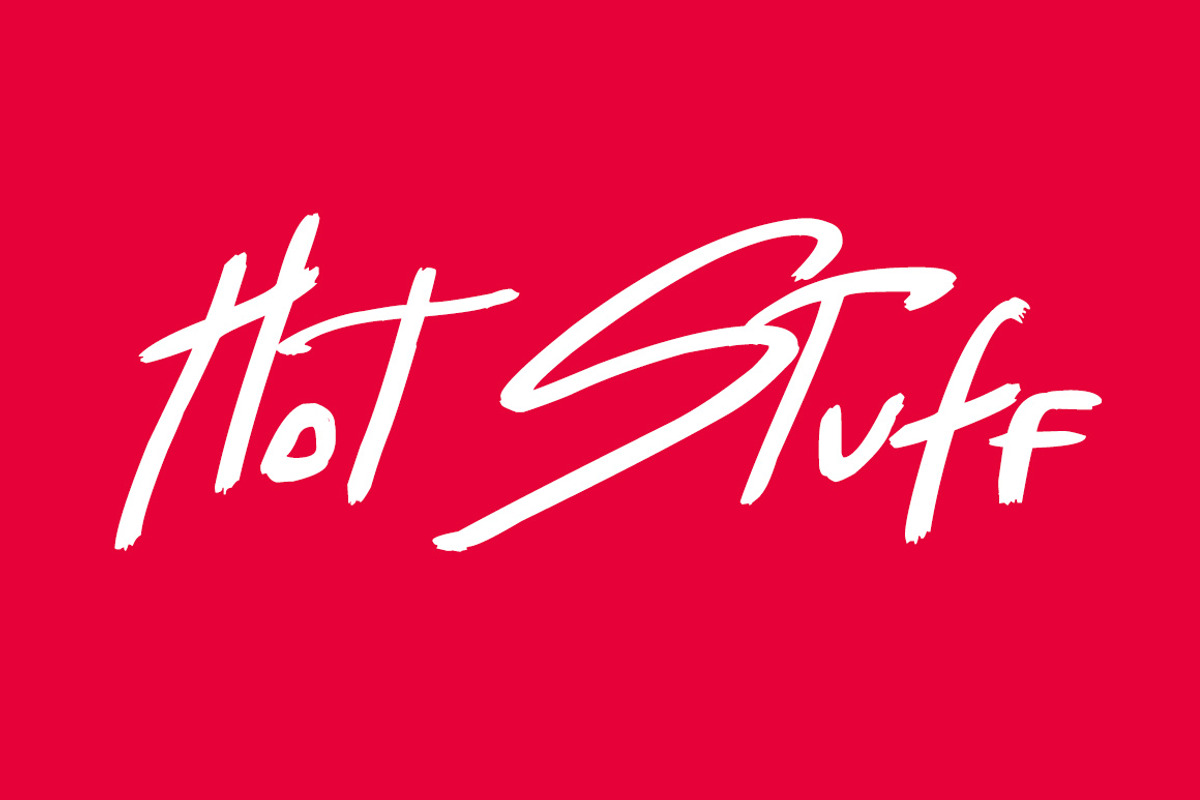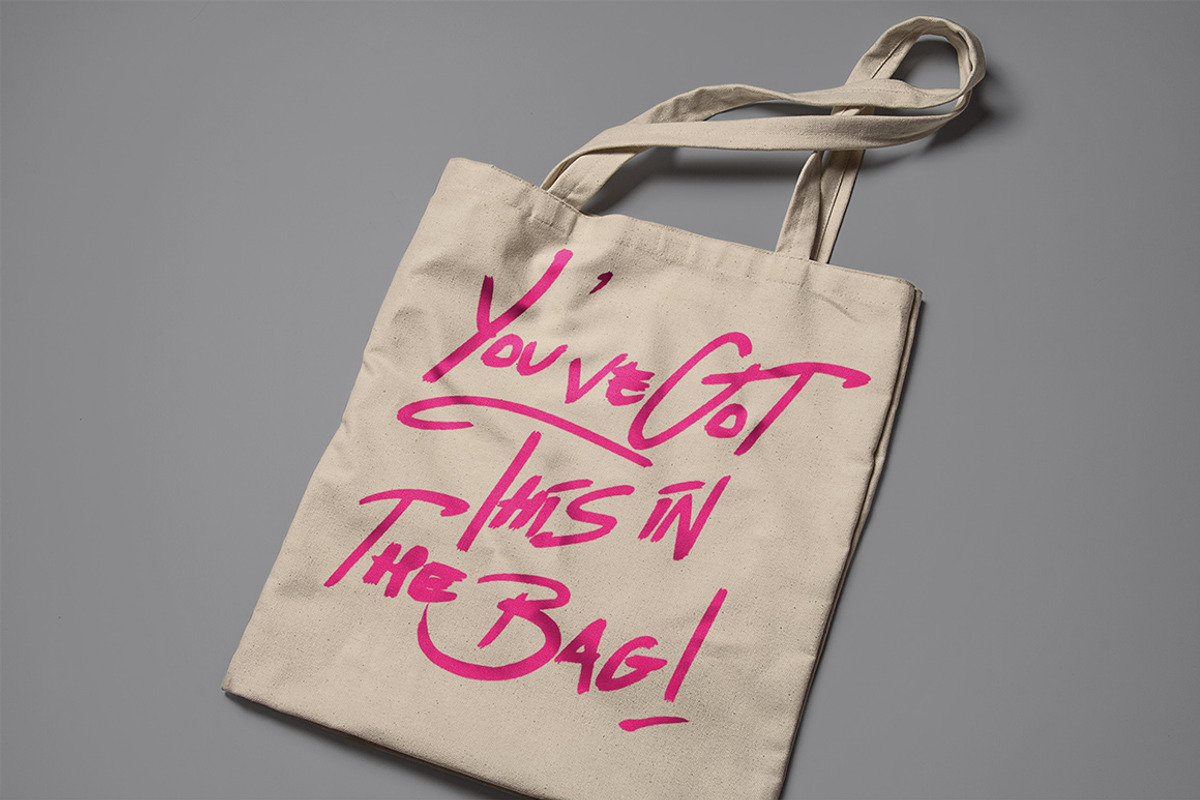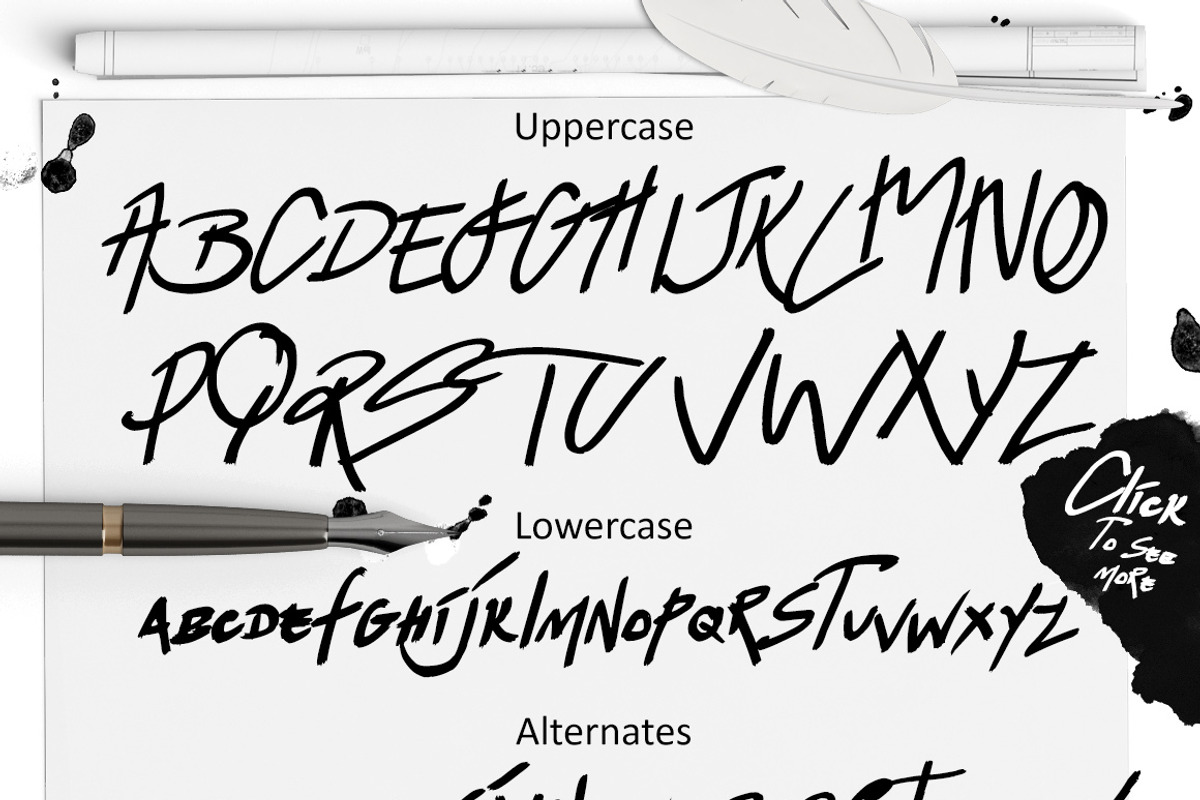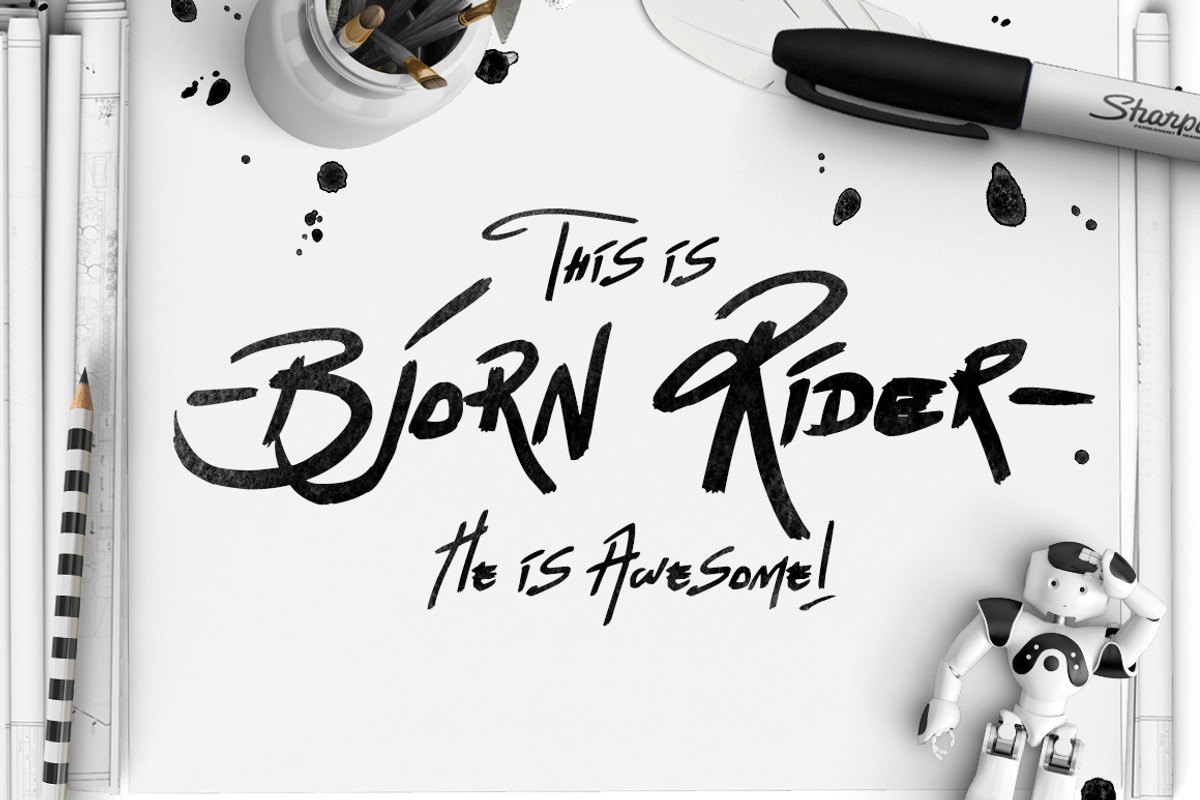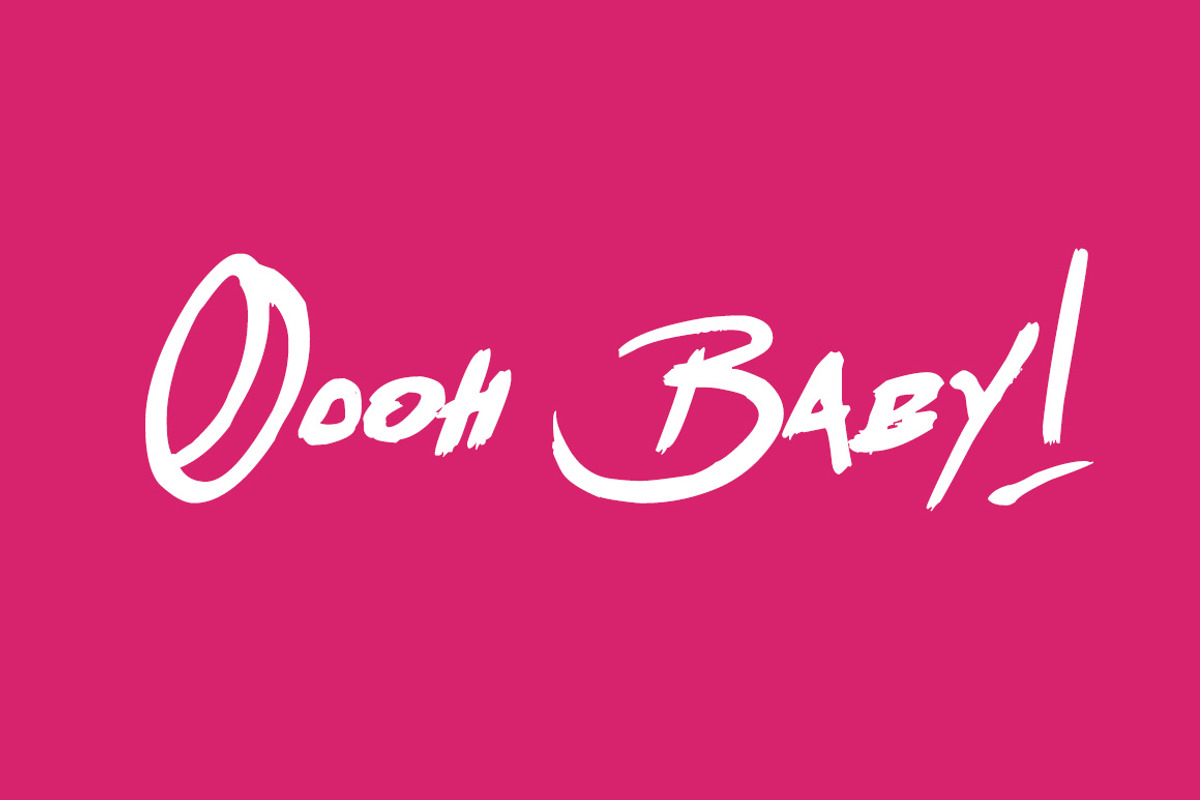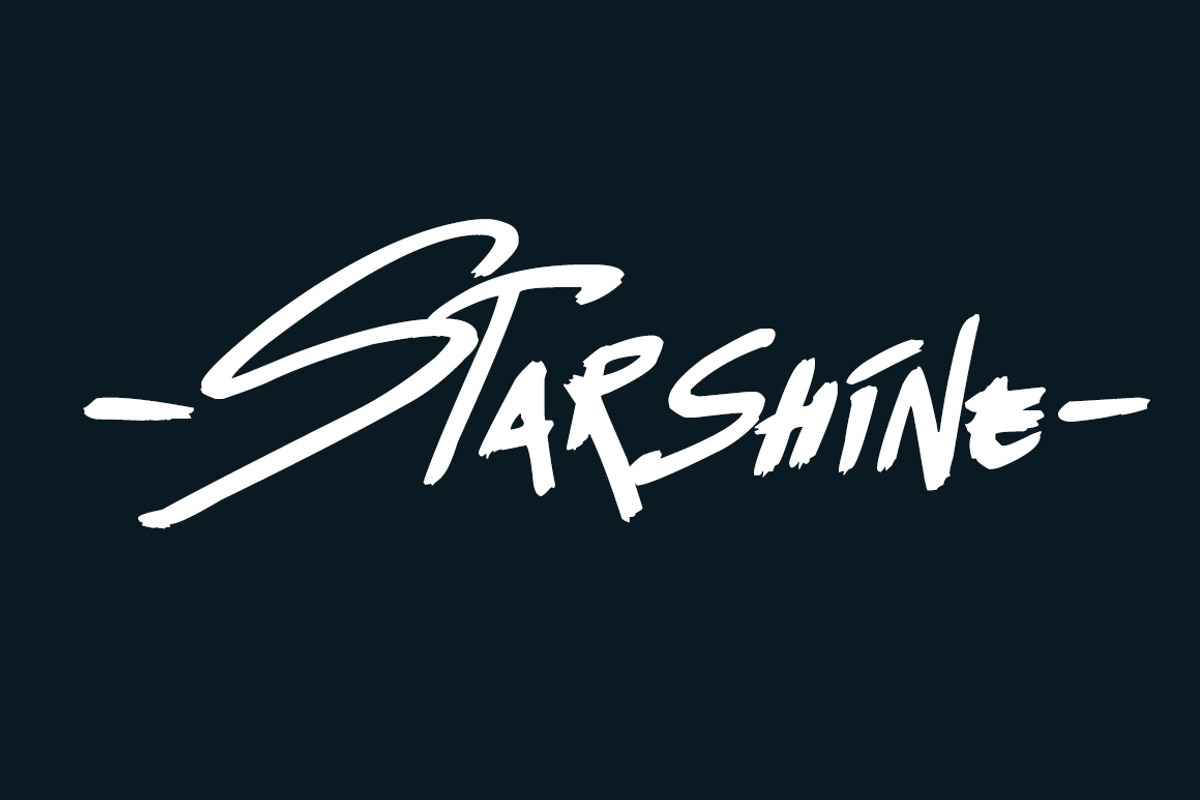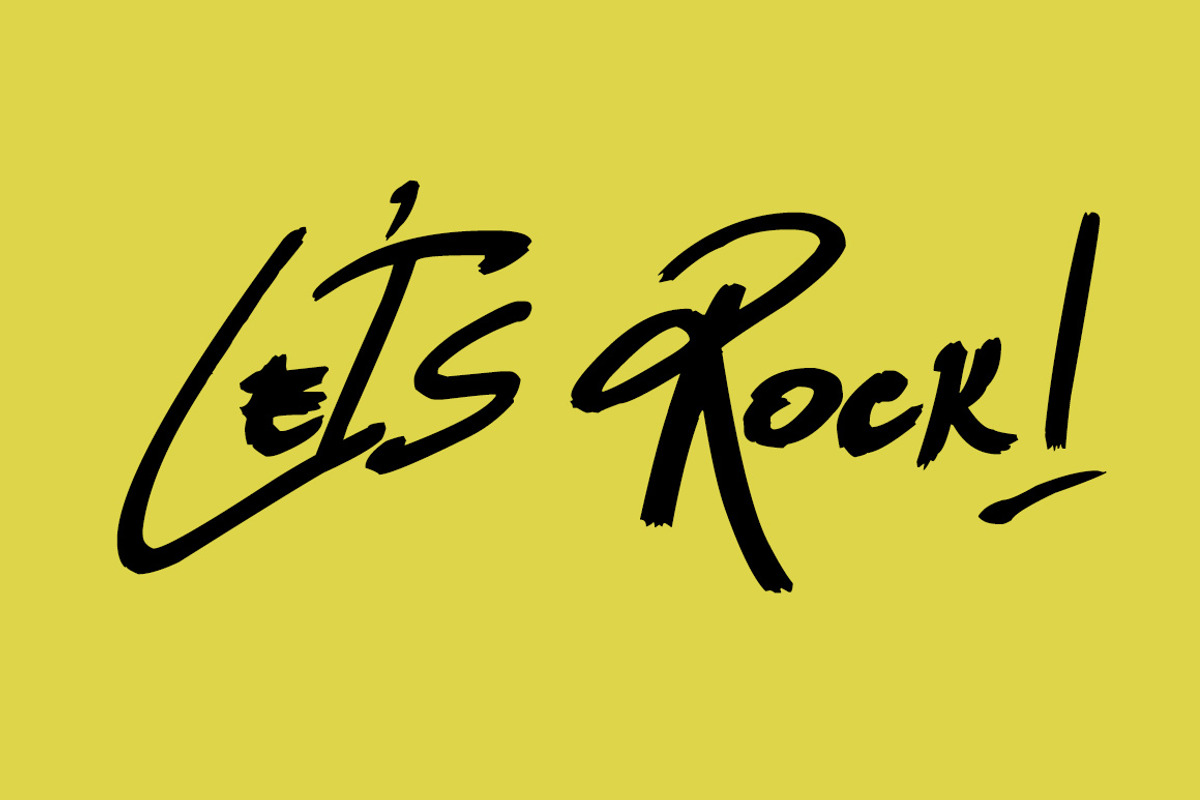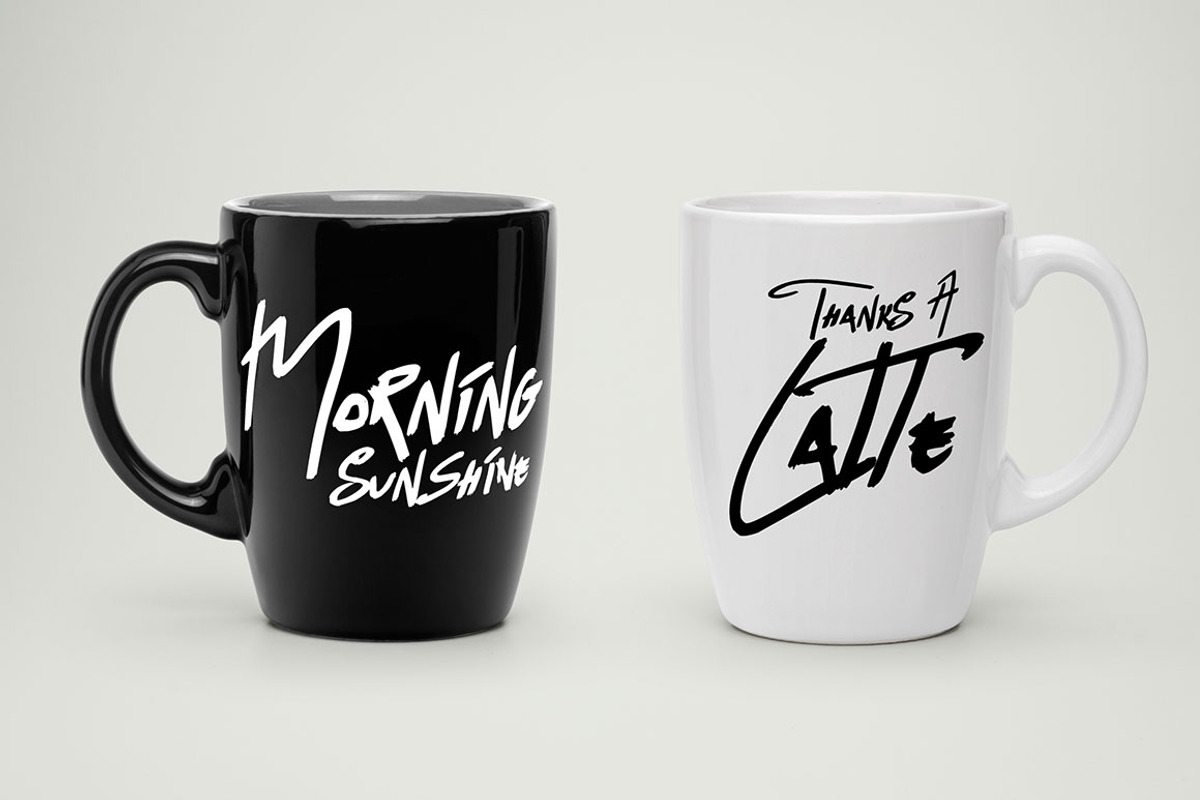
Bjorn Rider Hand Drawn Display Font
Bjorn Rider Hand Drawn Display Font by Creativeqube Design is a font selected for branding, posters, packaging, typography.
- Bjorn Rider is a hand drawn marker font with lots of irregularity and character, and it comes with a full set of alternate lowercase letters
Bjorn Rider Hand Drawn Display Font by Creativeqube Design fits naturally into Branding, posters, packaging, typography.